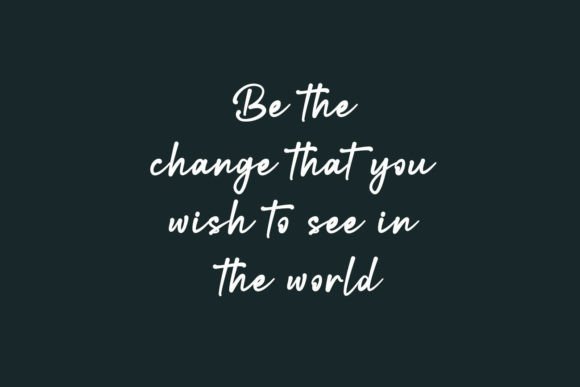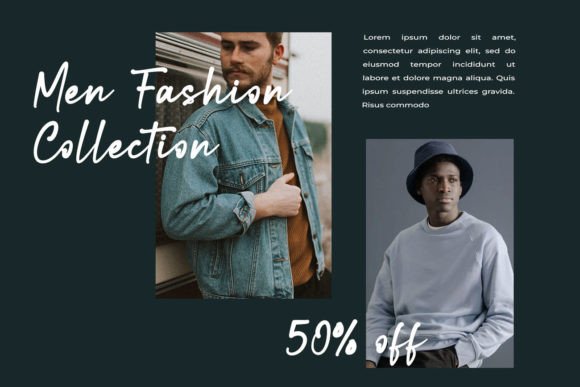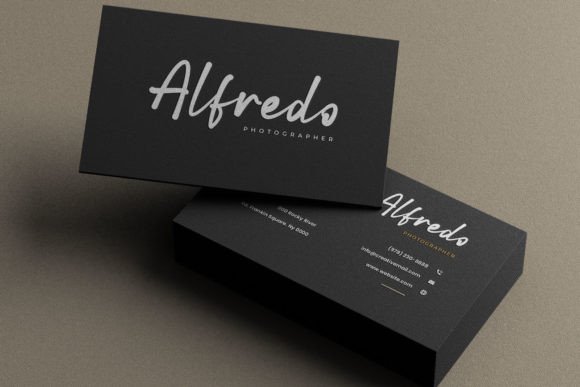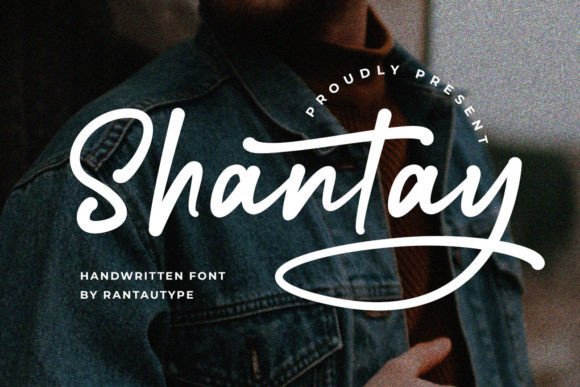
Introduction to Shantay Font
Shantay is a modern, casual handwritten script font that brings a fresh and contemporary feel to any design.
Its natural and flowing strokes create an effortless and relaxed vibe Perfect for branding, packaging, and social media graphics, Shantay adds a touch of informality and friendliness.